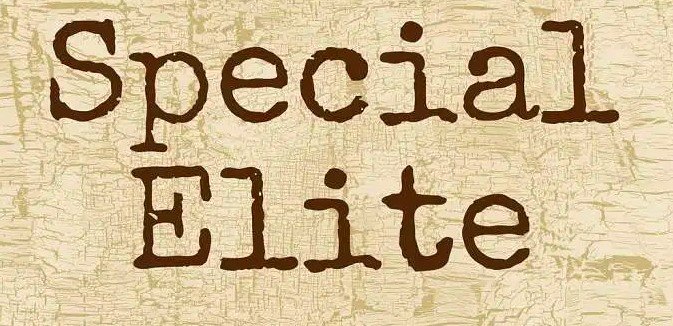
If you’re looking for a font that will inspire you to create exceptional designs and enhance your productivity, you should download the Special Elite Font for developing all types of designs. It features attractive and readable characters that can be seamlessly integrated into various graphic designs. Additionally, it’s suitable for use in your website designs.
The font has a large number of ligatures, alternates, awesome swashes, and having unique look that will give your project an attractive look. Every viewer of designs can easily attractive to the project that you will build with this font.
It’s up to you how you can utilize it. We suggested you some ideas of design in which it works very much well. Projects like invitations card, poster, banners, UI designs, WordPress web designs and other such kinds of stuffs can be designed with the help of this font.
Designer Astigmatic One Eye Typographic Institute